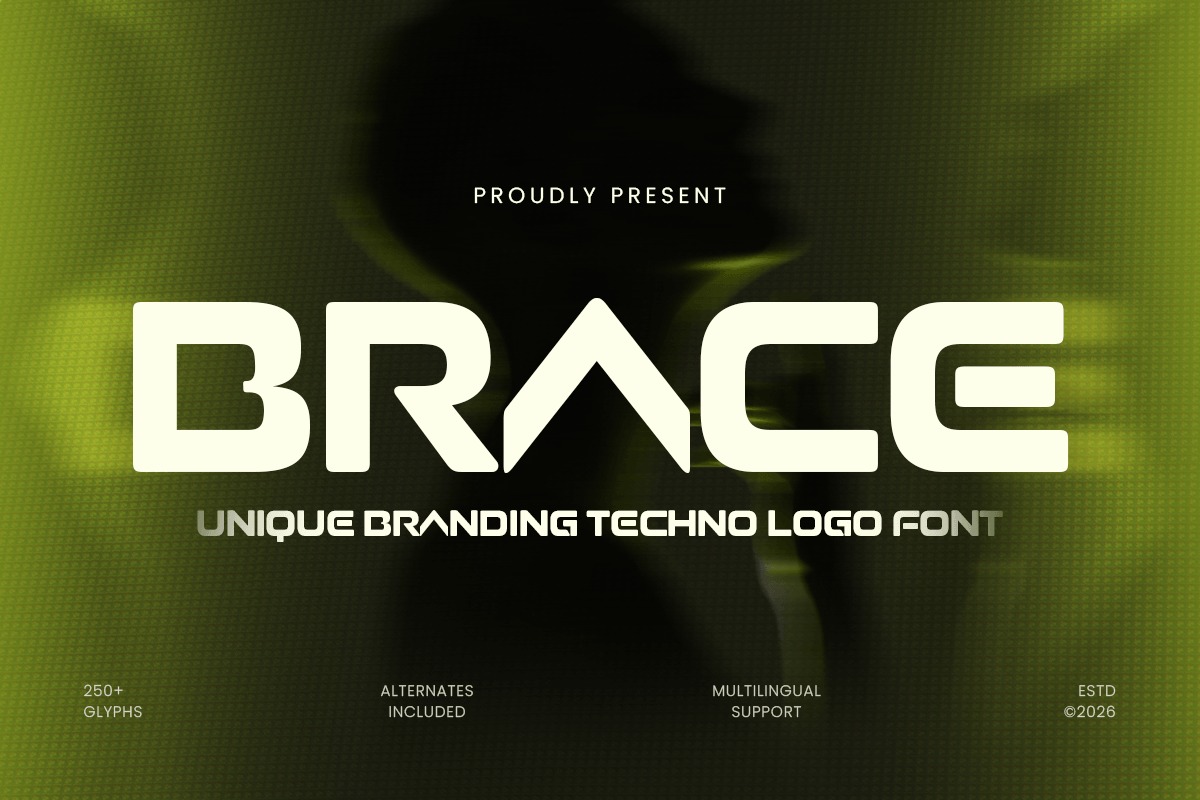
Brace – Branding Tech Logo Font
Brace – Branding Tech Logo Font brings a balanced structure and contemporary look, making it suitable for both digital and print design. Brace – Branding Tech Logo Font is a modern display typeface crafted to represent clarity, innovation, and digital precision. Inspired by contemporary technology ecosystems and clean branding systems, Brace is designed for projects that require a strong and professional tech-driven identity.
With its refined structure, balanced geometry, and modern letterforms, Brace delivers a clean and confident typographic presence. The design ensures high readability while maintaining a futuristic and innovative tone, making it ideal for technology branding and digital products.